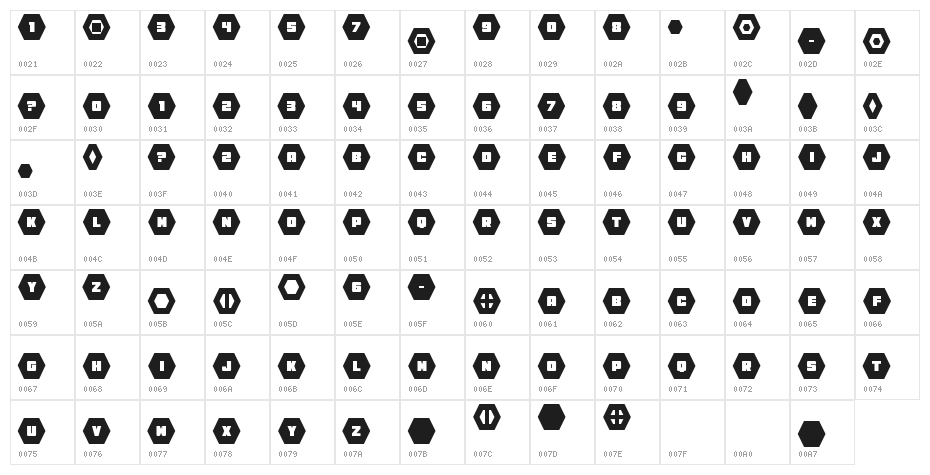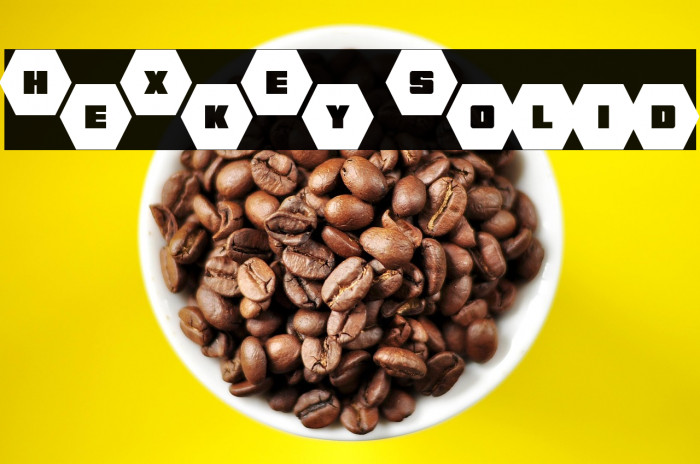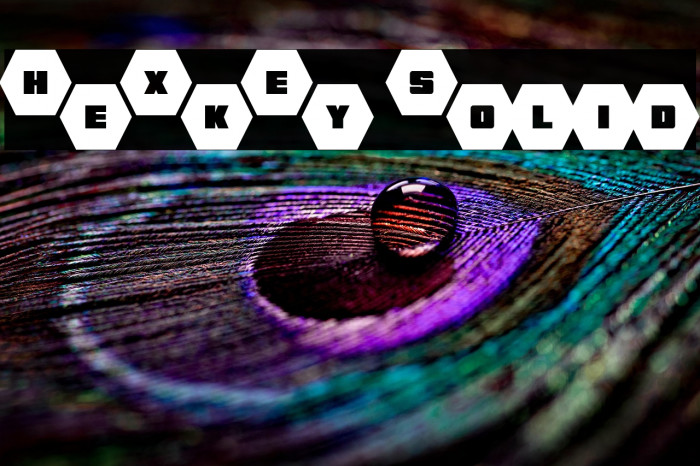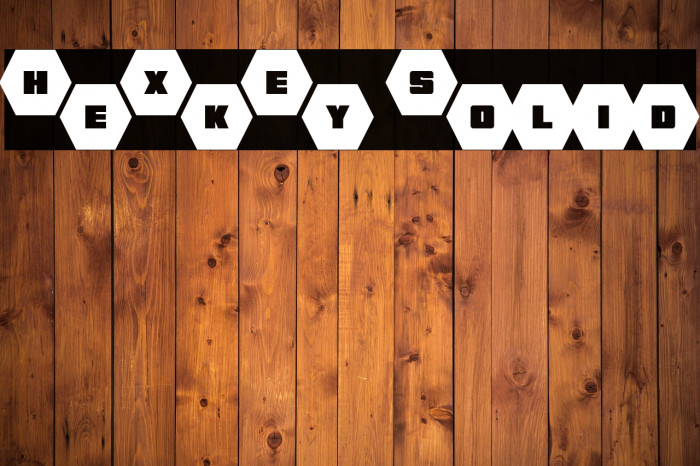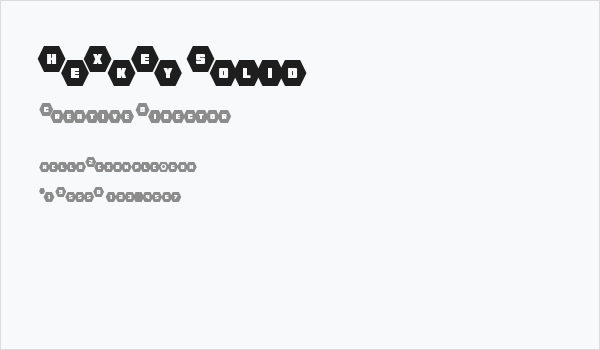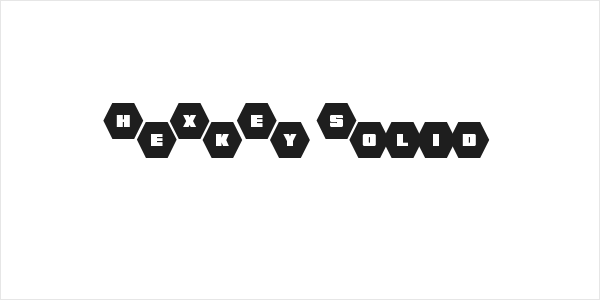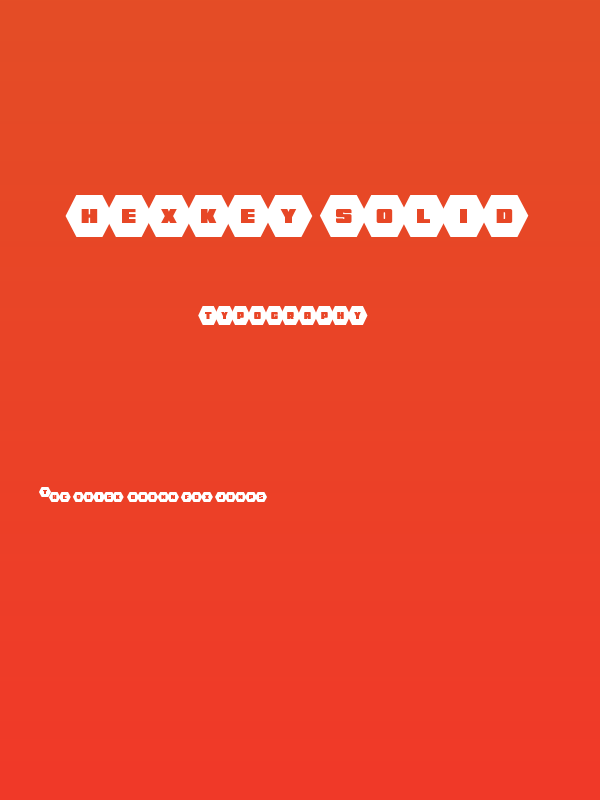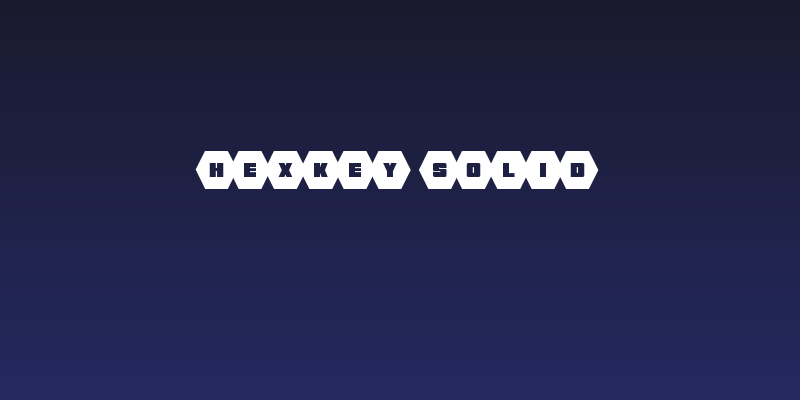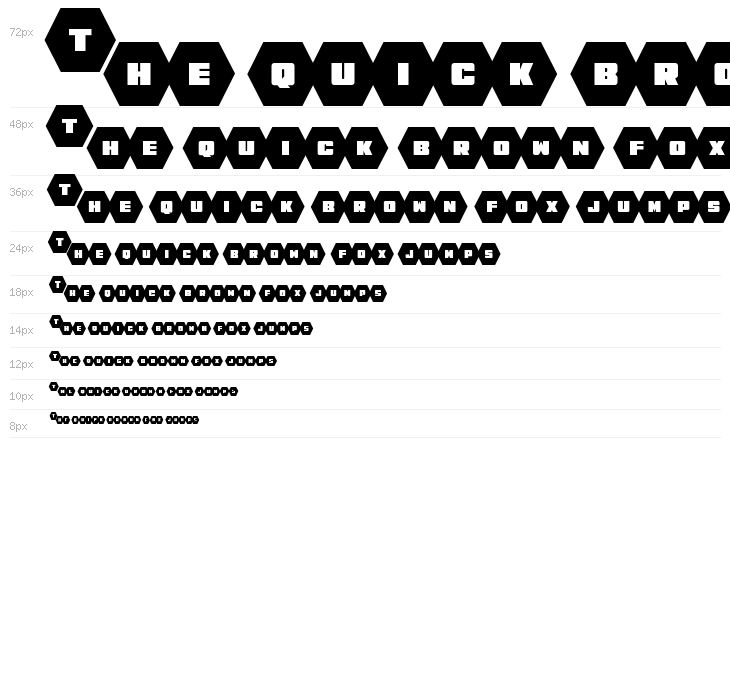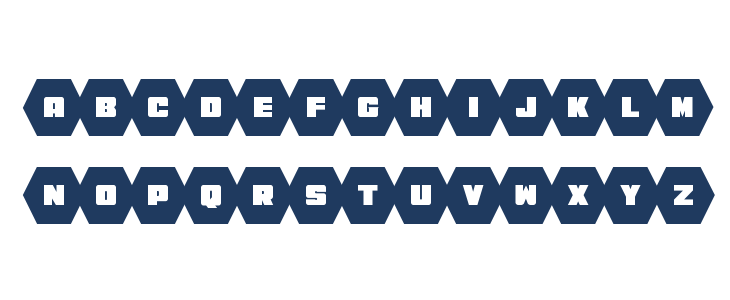
HeXkEy Solid Font
HeXkEy Solid Description
This font features a bold, geometric design with each character enclosed within a hexagonal shape. The style is distinctly modern and futuristic, with sharp edges and a uniform thickness throughout each letter and number. The characters are all uppercase, with a consistent height and width, creating a cohesive and structured appearance. The unique hexagonal framing adds a decorative element, making it stand out for creative and eye-catching designs. The font's uniformity and boldness make it suitable for projects that require a strong visual impact.
| Proposed Projects | Ideal for video game titles, tech branding, futuristic posters, and any project needing a bold, modern aesthetic. |